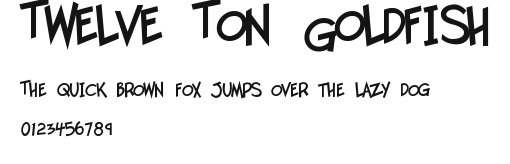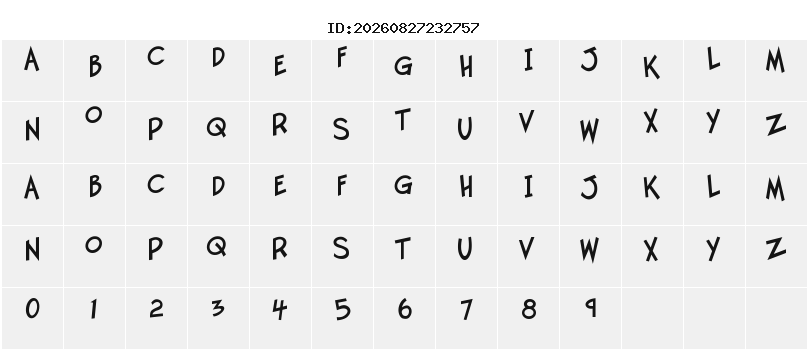
• Font Name: Twelve Ton Goldfish
Twelve Ton Goldfish.ttf is a modern, elegant sans-serif font designed for ultimate readability and visual harmony. Perfect for branding, headlines, web design, and print materials.